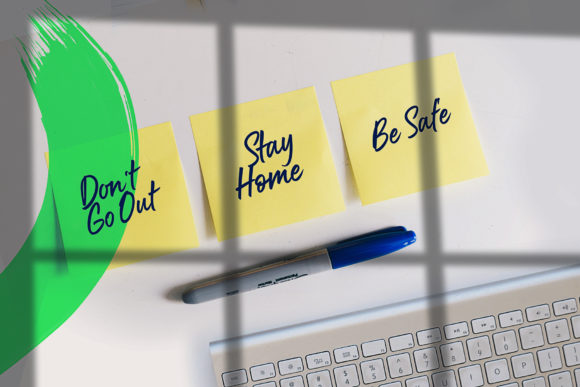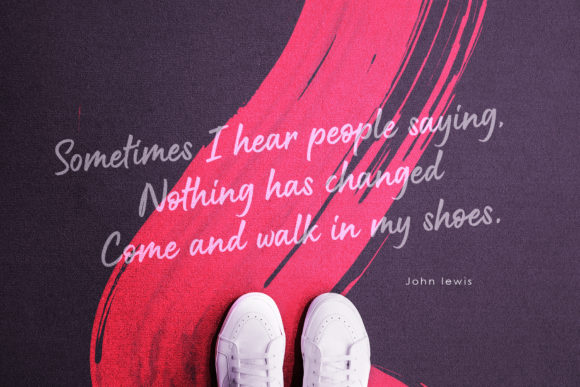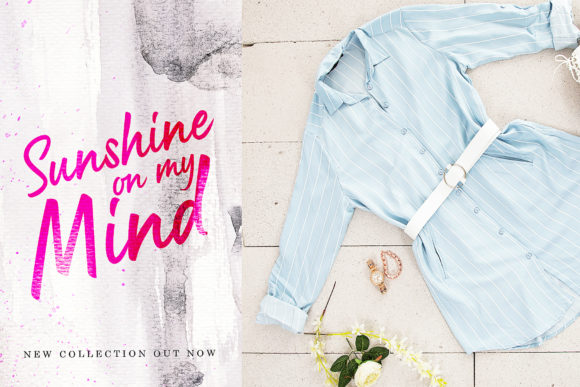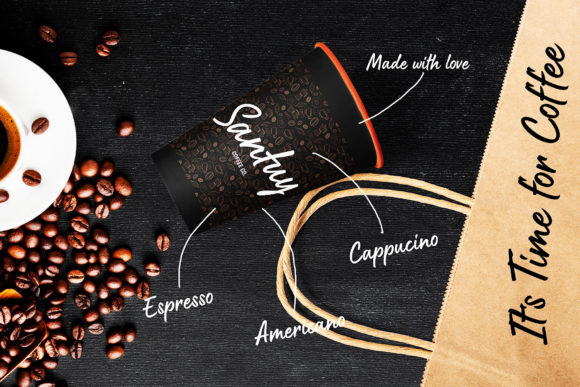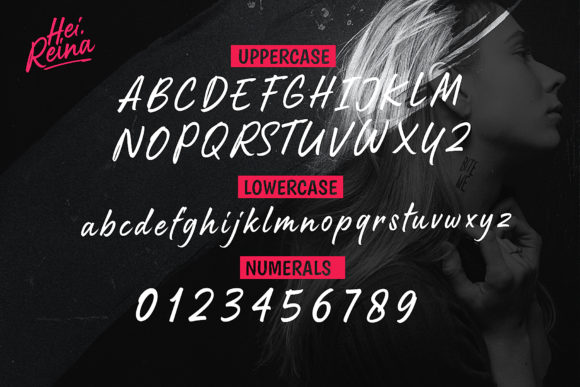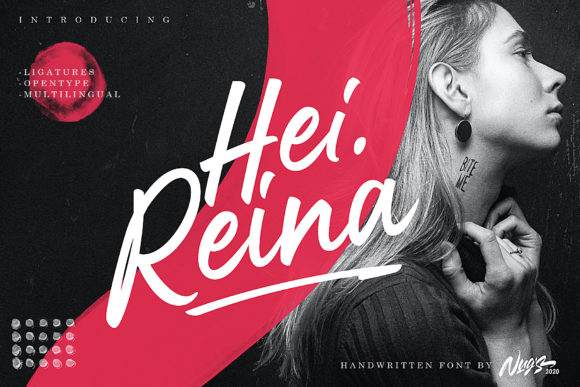
Introducing Hei Reina Font: Elevate Your Designs with a Personalized Touch
In the world of design, typography plays a crucial role in conveying messages, expressing creativity, and capturing the audience’s attention. Among the numerous fonts available, Hei Reina stands out as a stunning handwritten typeface that can add a neat, personalized feeling to your designs. Whether you’re a professional designer, a crafty DIY enthusiast, or a small business owner, Hei Reina is an excellent choice for various projects, from headings and logos to invitations, t-shirt designs, and more.
The Beauty of Handwritten Typography
Hei Reina’s beauty lies in its handwritten nature, which exudes warmth and friendliness. This font is carefully crafted to mimic the uniqueness of human handwriting, making each letter and word distinct and character-filled. The result is a typeface that feels approachable, intimate, and engaging, perfect for designs that require a personal touch.
One of the significant advantages of Hei Reina is its versatility. This font is suitable for a wide range of applications, including:
- Headings: Add a touch of elegance and sophistication to your headings, making them stand out and grab attention.
- Logos: Create a unique and memorable brand identity with Hei Reina, perfect for businesses, products, or services.
- Invitations: Make your invitations special and personalized with Hei Reina, ideal for weddings, parties, and other celebrations.
- T-shirt Designs: Create eye-catching and stylish designs for t-shirts, hoodies, and other apparel.
- Greeting Cards: Add a personal touch to your greeting cards, making them extra special for birthdays, holidays, and other occasions.
- Posters: Use Hei Reina to create visually appealing posters for events, promotions, or awareness campaigns.
- Labels: Design attractive labels for products, packaging, or branding purposes.
- Book Covers: Give your book a unique and captivating cover design with Hei Reina, perfect for authors, publishers, or self-published books.
- Brochures: Create informative and engaging brochures for businesses, services, or organizations.
Why Choose Hei Reina?
With so many fonts available, why should you choose Hei Reina? Here are a few compelling reasons:
- Unique and Character-filled: Hei Reina’s handwritten nature ensures that your designs stand out from the crowd.
- Easy to Read: Despite its creative and artistic feel, Hei Reina remains highly legible, making it perfect for both headings and body text.
- Highly Versatile: As mentioned earlier, Hei Reina is suitable for a wide range of applications, making it a valuable addition to your font library.
- Personalized Feel: Hei Reina’s handwritten style adds a personal touch to your designs, making them feel more approachable and engaging.
Tips for Using Hei Reina Effectively
To get the most out of Hei Reina, consider the following tips:
- Mix and Match: Combine Hei Reina with other fonts to create visually appealing contrasts and hierarchies.
- Play with Sizes: Experiment with different font sizes to emphasize certain elements and create visual balance.
- Adjust Letter Spacing: Fine-tune the letter spacing to ensure optimal readability and aesthetics.
- Use it Sparingly: While Hei Reina is a beautiful font, use it judiciously to avoid overwhelming your designs.
Hei Reina is a beautiful handwritten typeface that can elevate your designs with a personalized touch. Its versatility, unique character, and ease of use make it an excellent choice for designers, crafters, and small business owners. Whether you’re creating headings, logos, invitations, or other designs, Hei Reina is sure to add a touch of elegance and sophistication. So, why not give Hei Reina a try and experience the power of handwritten typography in your designs?